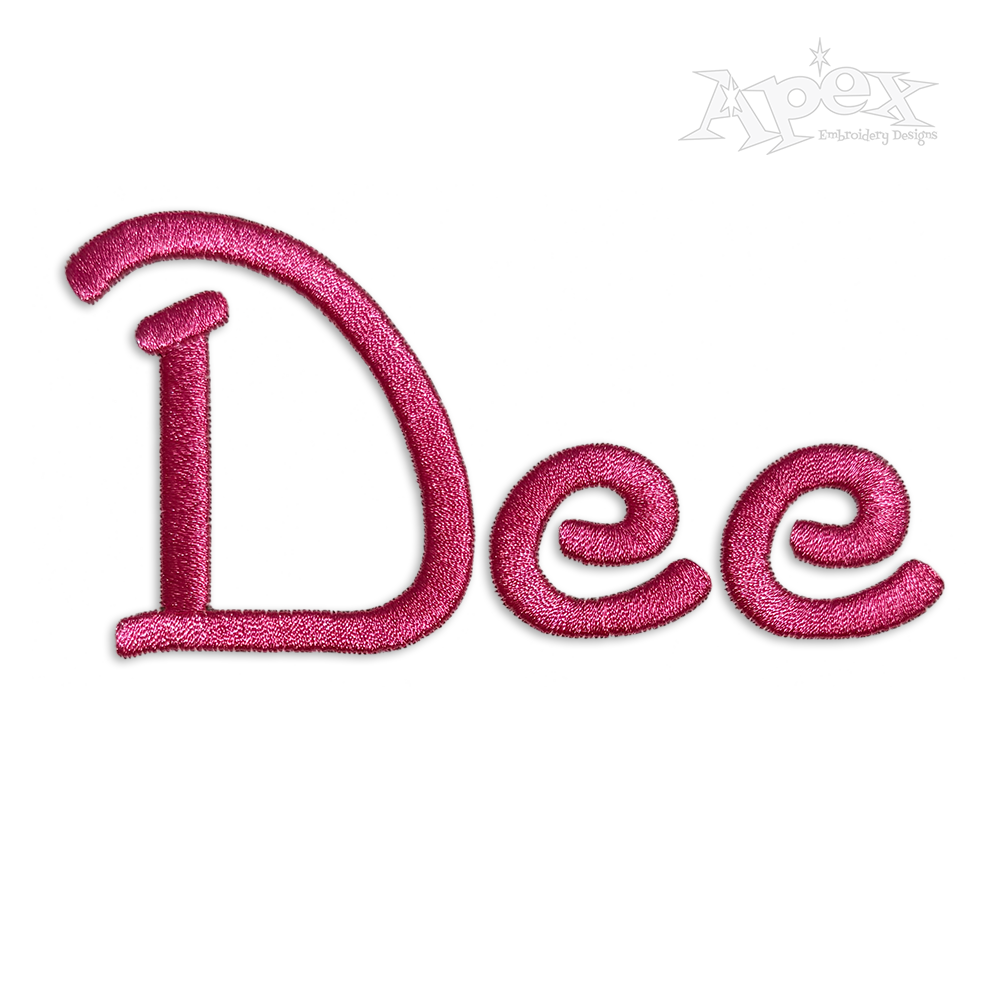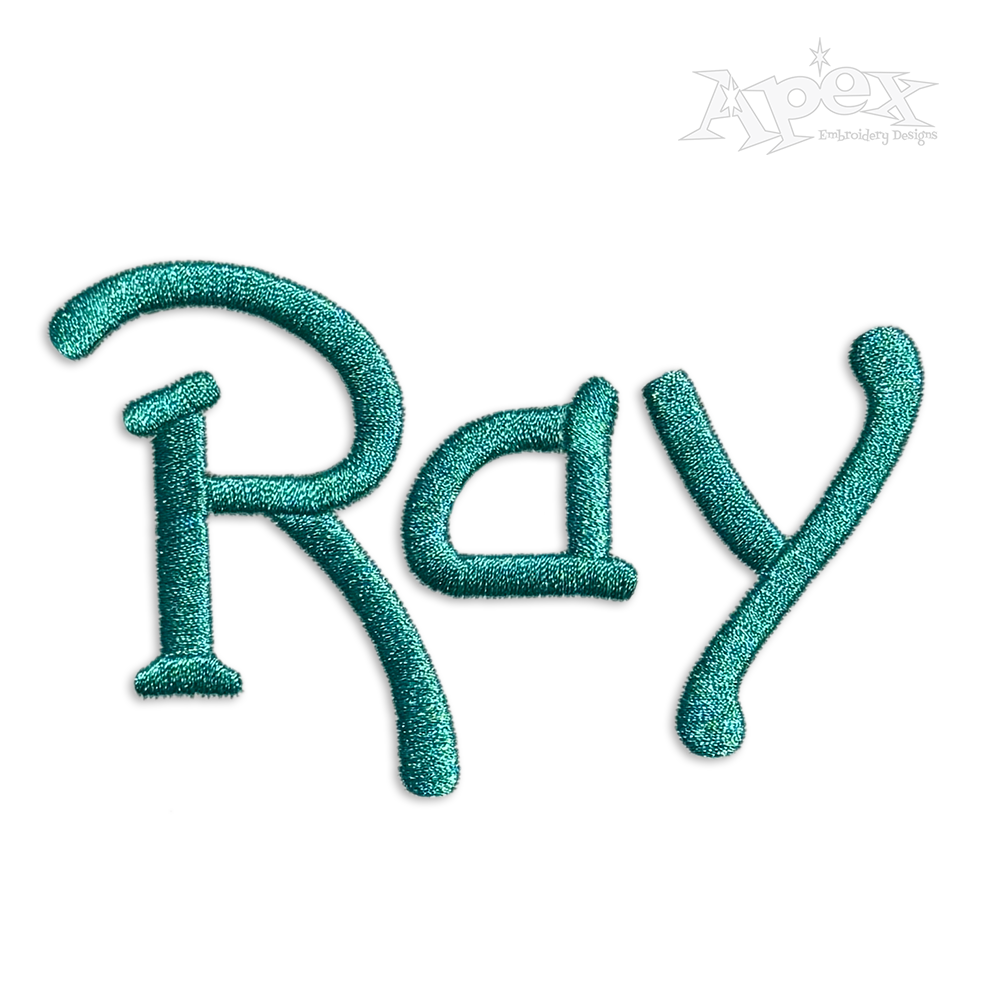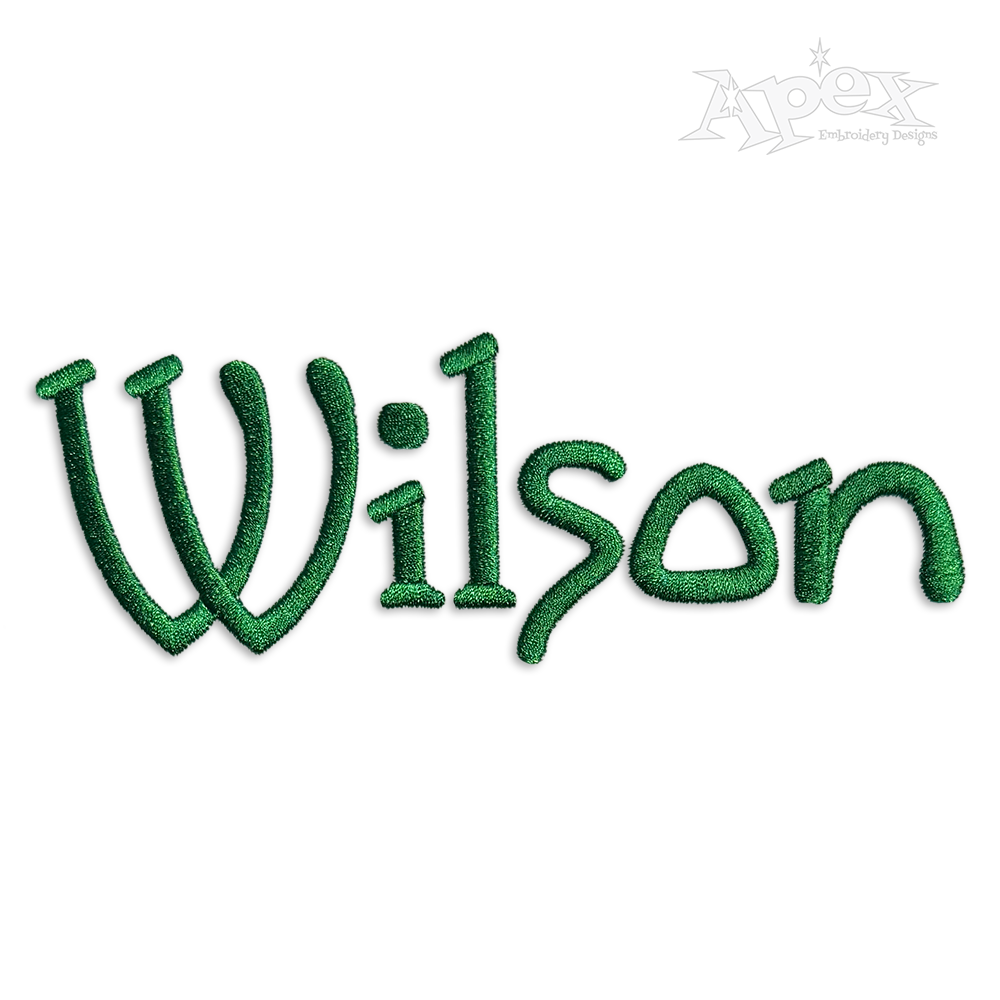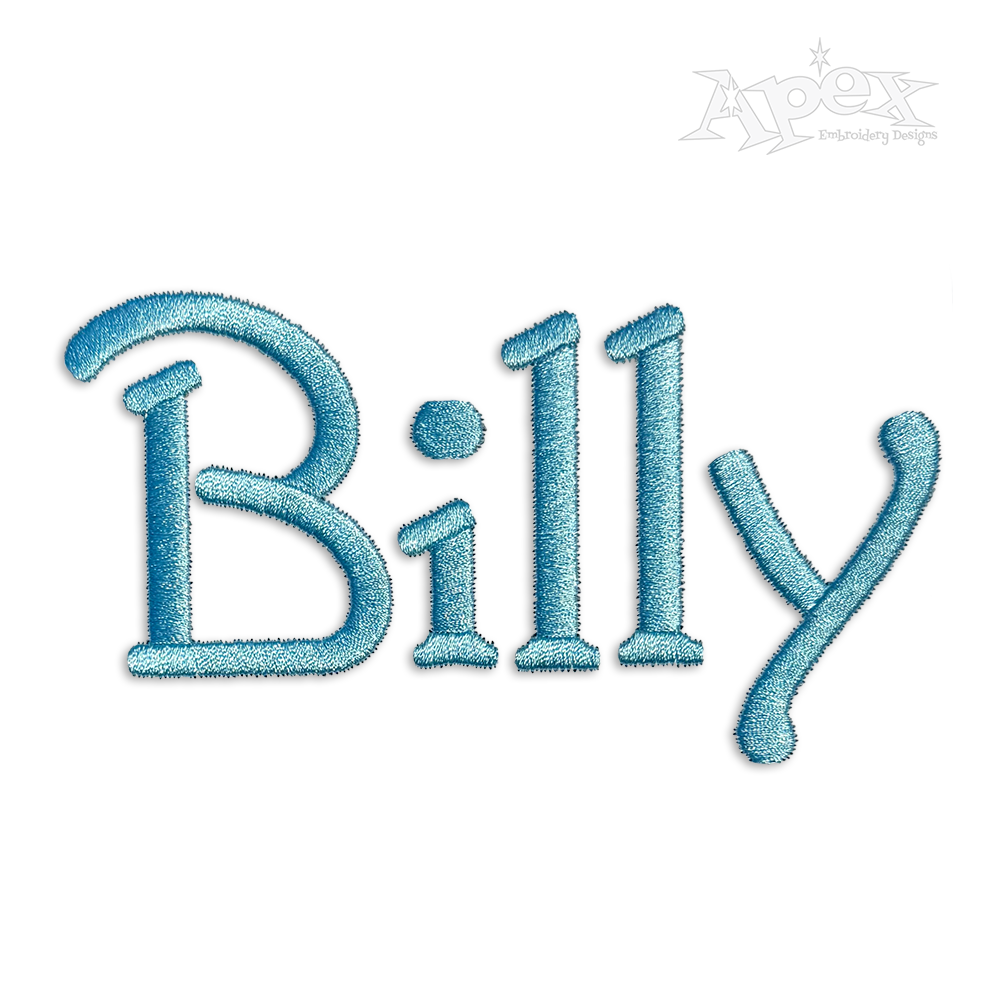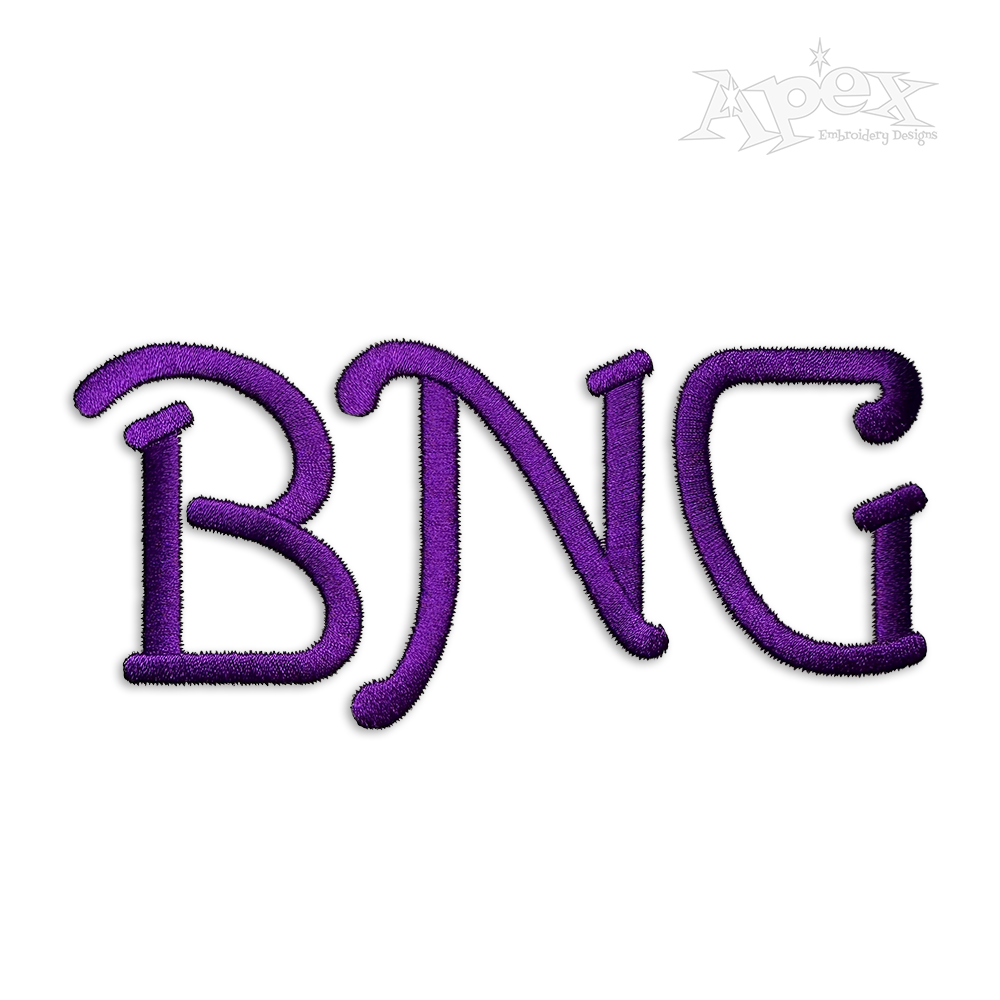
Dakota Embroidery Fonts
Conceived in the quiet precision of our studio, the Dakota Embroidery Font captures the balanced harmony of tailored modernism and timeless heritage charm. With its commanding stance, clean architectural lines, and radiant surface finish, Dakota translates effortlessly from rugged, sun-drenched canvas to the quiet luxury of brushed linen. Every stitch is thoughtfully choreographed to capture ambient light across smooth satin columns, creating an arresting depth that feels both distinctly bespoke and effortlessly classic.
The Dakota embroidery collection is meticulously digitized in four versatile sizes, providing balanced proportions for everything from intimate monograms to bold statement initials:
Project Ideas for Dakota Embroidery Font
Dakota’s crisp geometry and timeless demeanor bring sophisticated character to an array of personalized gifting and textile decor projects:
Because Dakota possesses crisp balance and clean definition, it harmonizes gracefully across diverse garment and linen positions:
Dakota Embroidery Font Craft & Letterform Details
The quiet mastery of Dakota lies in its intentional digitization. Rather than simply applying automated fills, our digitizers manually engineered each curve, apex, and crossbar to prioritize flawless stitch rhythm and thread sheen. Generously planned foundational underlay anchors the fabric fibers, ensuring that the rich, top-layer satin stitches lay unbroken without sinking into textured weaves or puckering lightweight textiles.
Subtle pull compensation is built directly into every stroke, preserving true-to-life geometry when translating vector curves into dynamic thread tension. Clean corner caps and graduated satin angles create velvety, mirror-like transitions where lines meet, ensuring your finished embroidery looks impeccably crisp from the first stitch to the final tie-off.